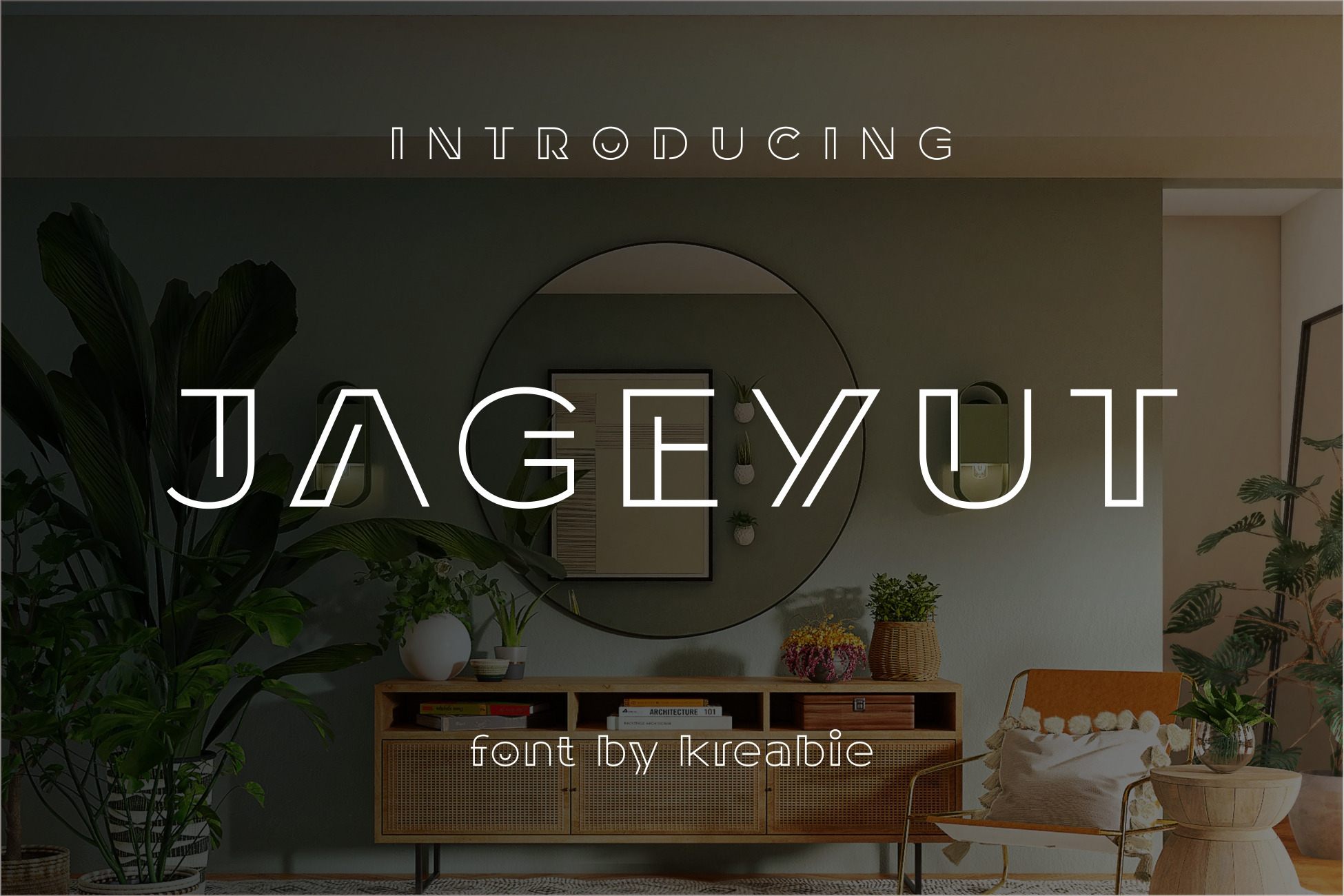
JAGEYUT FONT
JAGEYUT Font
JAGEYUT Its unique style makes it stand out, making it perfect for anyone who wants to make a statement.,The font is suitable to use for many occasion.